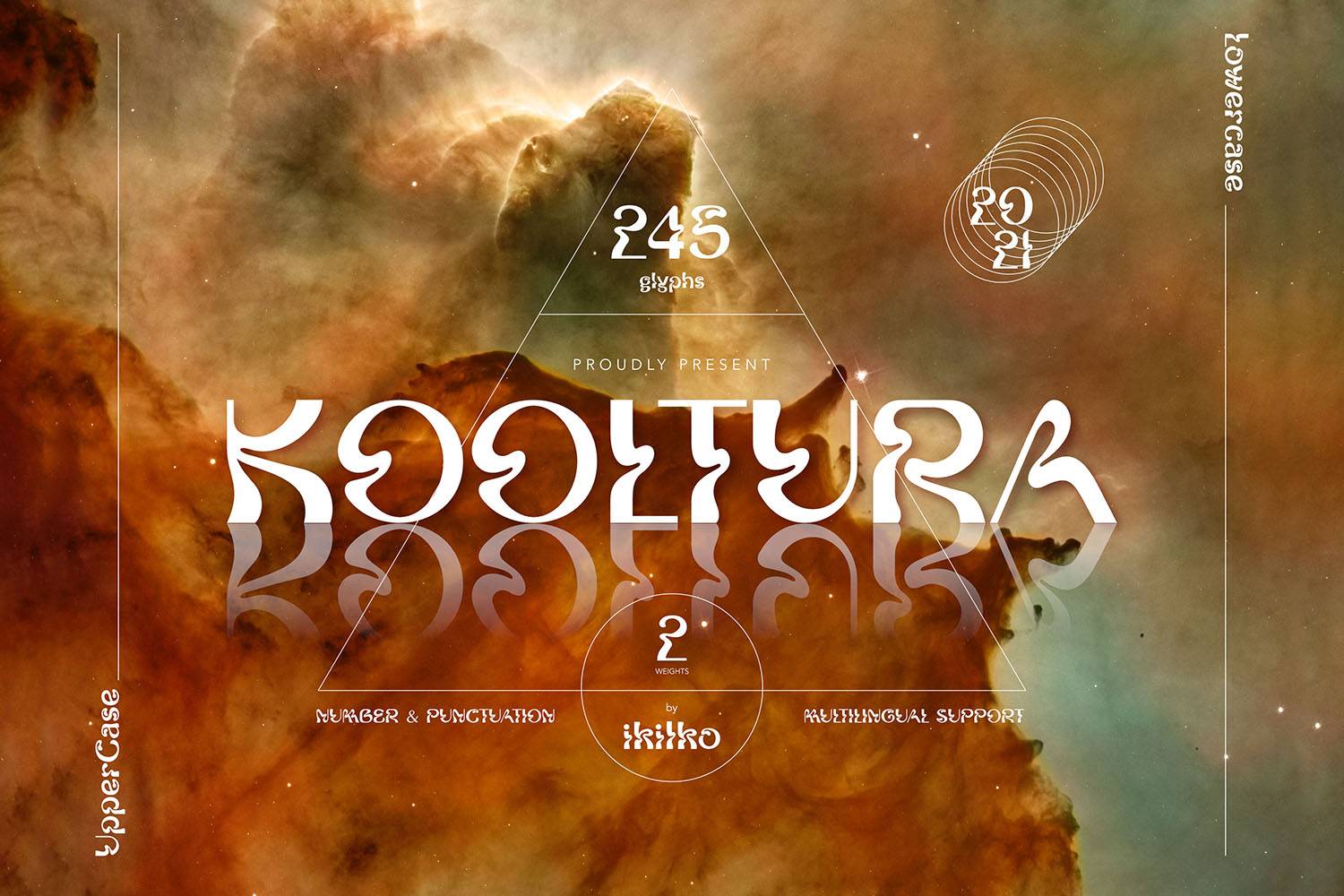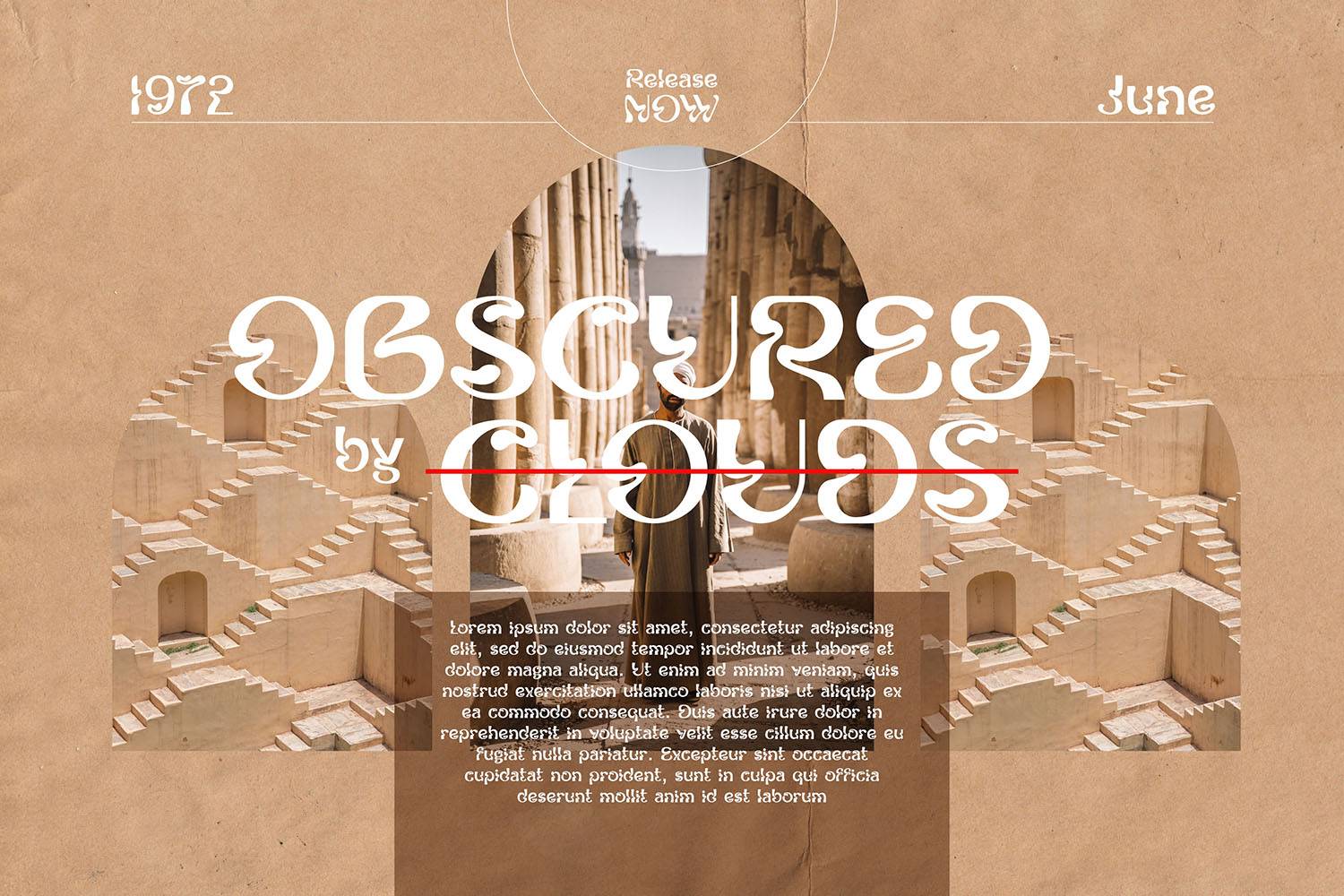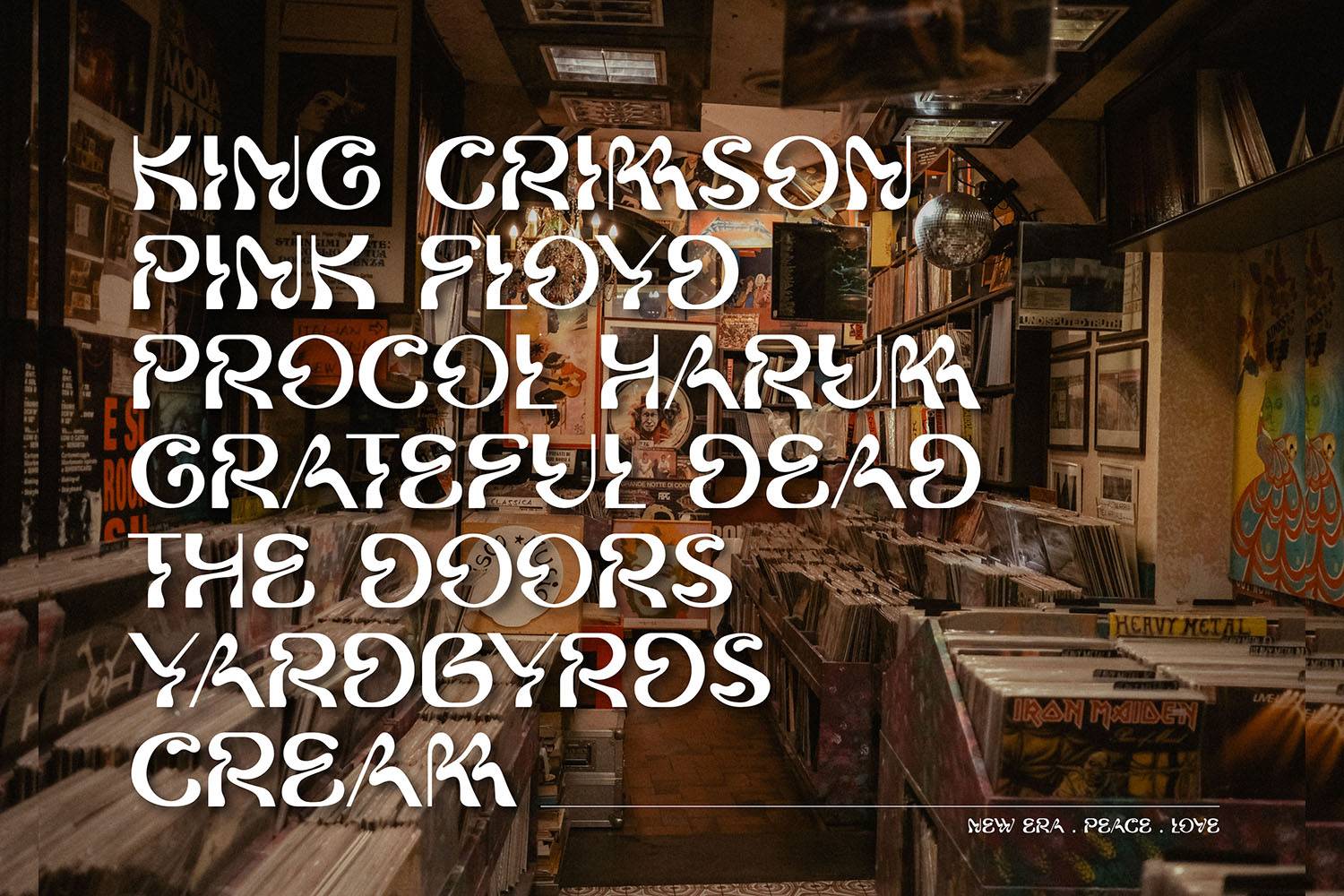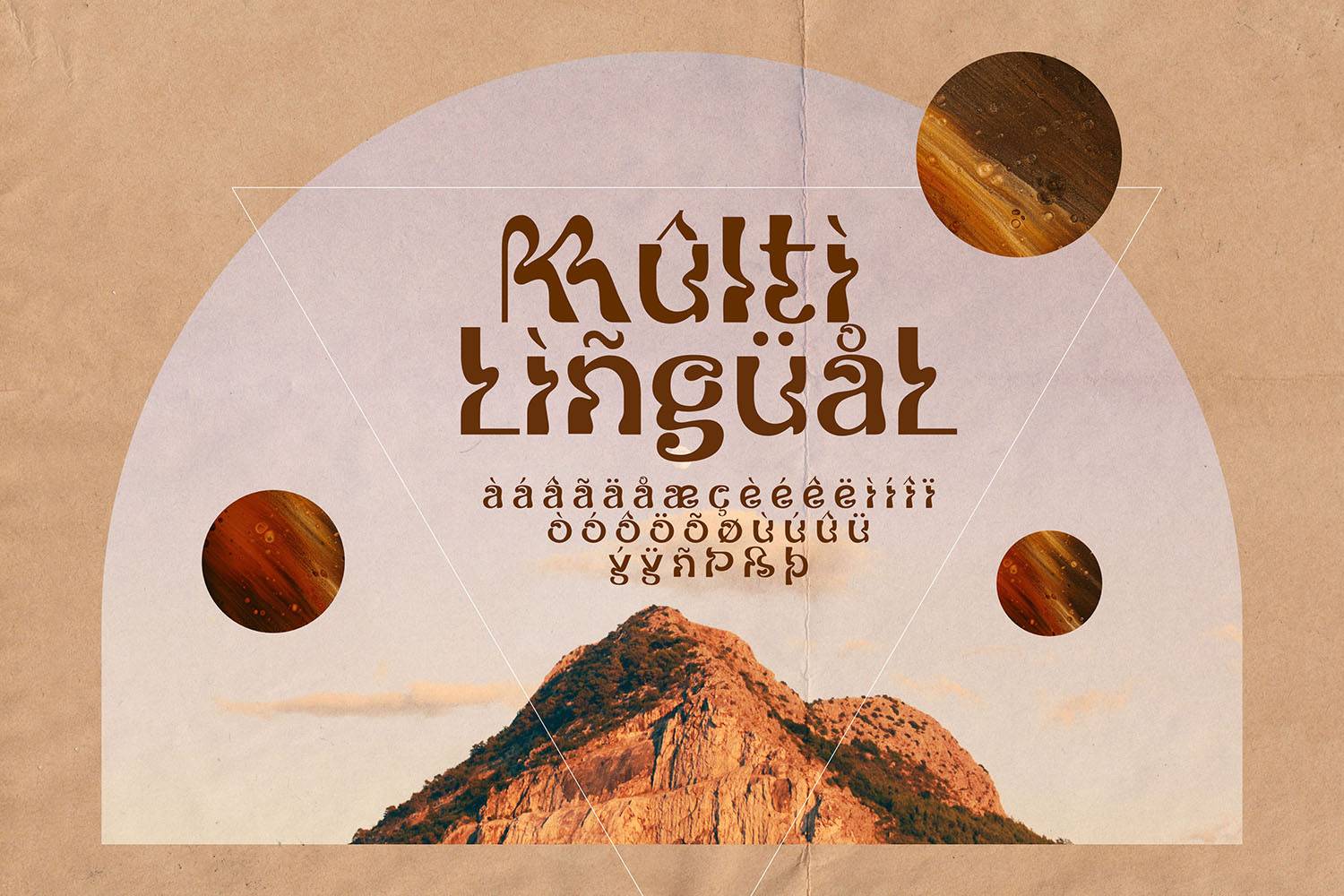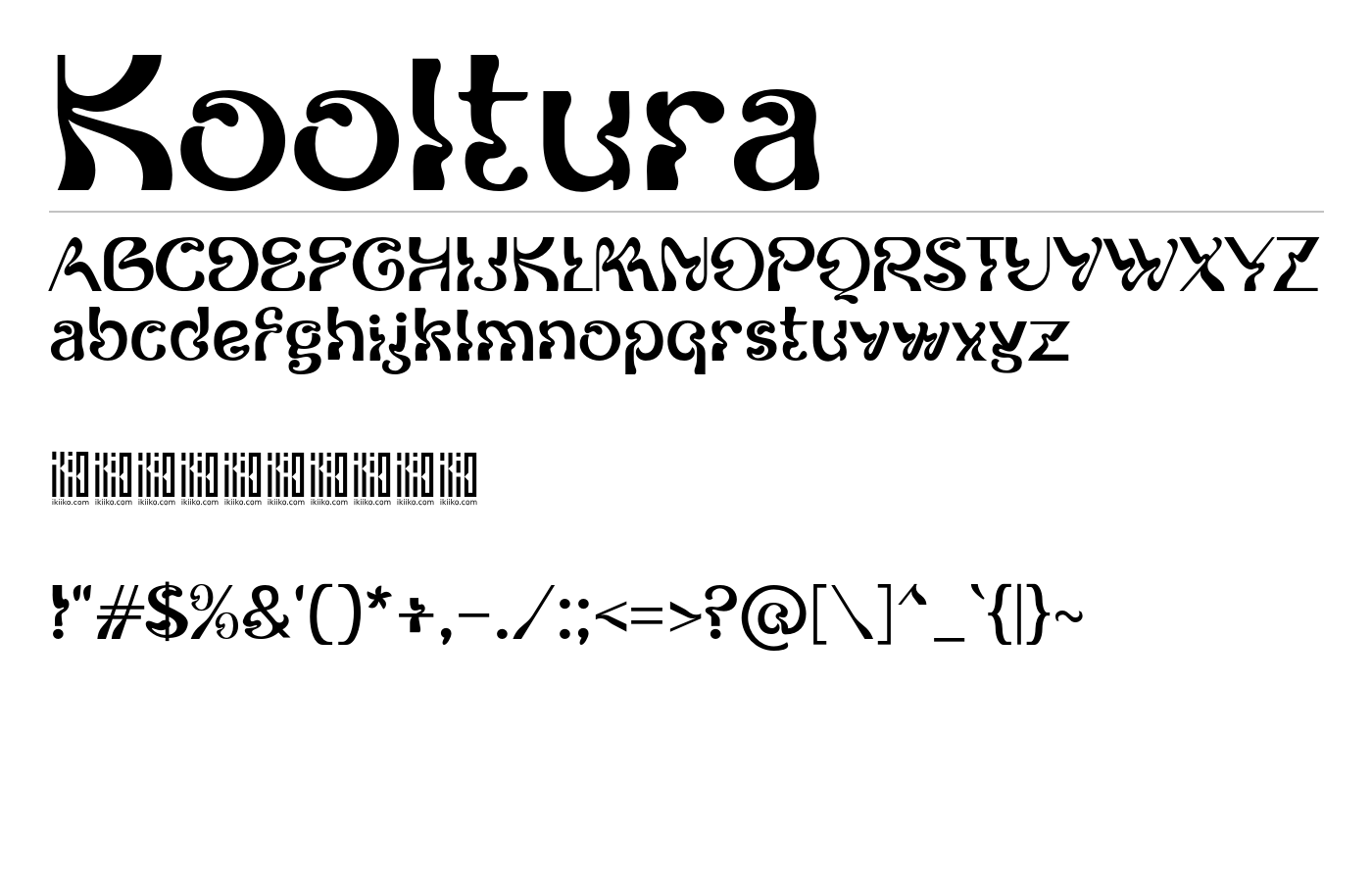
Kooltura is a distinctive serif font with a quirky and artistic flair, featuring high contrast strokes and unique, almost whimsical letterforms that blend modern and vintage styles. Its tall x-height and unusual shapes give it a playful yet sophisticated personality, making it ideal for creative branding, editorial design, and standout headlines where character and style are essential. This font brings a lively, culturally rich vibe that works perfectly for fashion, art, and lifestyle projects seeking an original and memorable look.
Kooltura Font
About Kooltura Font
| Font family | Kooltura Font |
| Release date | 2021-09-30 |
| Designer | Andhika Pradana, Wahyu Eka Prasetya |